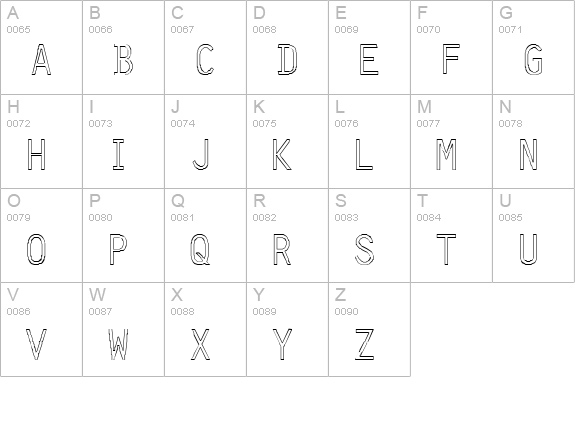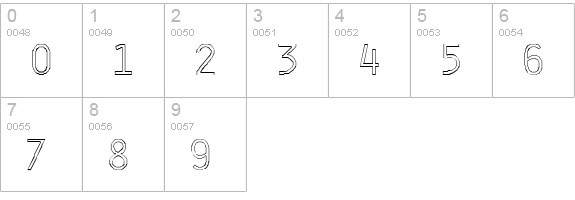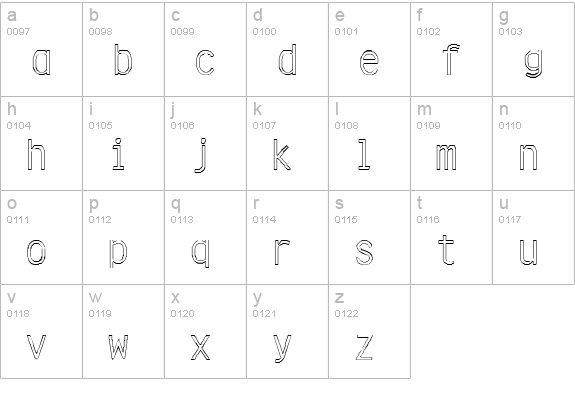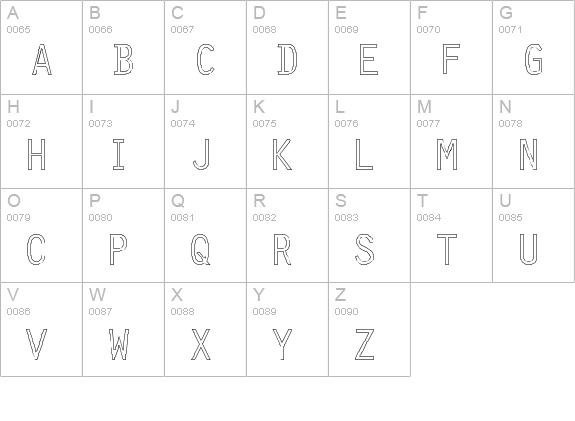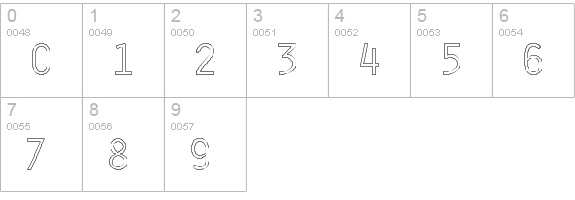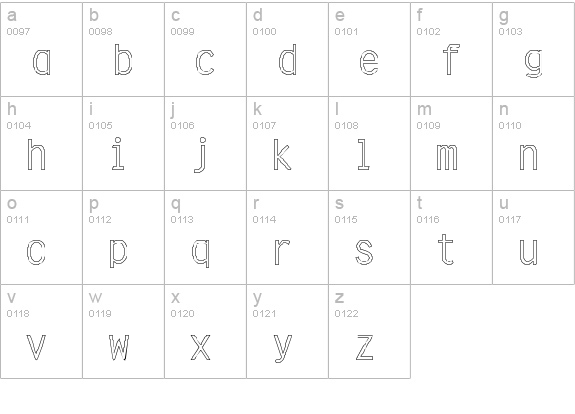
MyriadeOpen Font Details
MyriadeOpen is a versatile and modern typeface that effortlessly blends elegance with functionality. This sans-serif font features clean lines and a contemporary aesthetic, making it perfect for a wide range of design projects. With its balanced proportions and easy readability, MyriadeOpen is suitable for both digital and print applications, from branding to editorial design. What sets MyriadeOpen apart is that it is available for free download at FontsMarket.com. This means that designers and creatives can easily access this high-quality font without any cost, making it a valuable addition to any font library. Whether you're working on a website, a poster, or a logo, MyriadeOpen offers a professional and polished look that will elevate your project to the next level. Download MyriadeOpen today and discover the endless possibilities it brings to your design work.